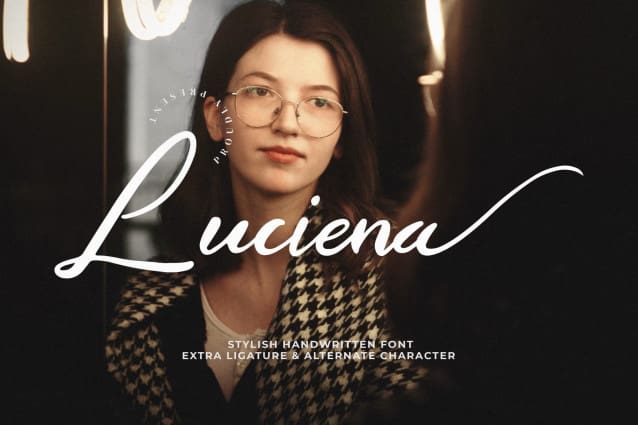
Luciena Script Font
Luciena Script Font – Stylish Handwritten Font , from Goresan Studio, suitable for any projects such as: logos, branding projects, homeware designs, product packaging, mugs, quotes, posters, shopping bags, t-shirts, book covers, name card, invitation cards, greeting cards, label, photography, watermark, special events, and all your other lovely projects that need a beautiful script taste.